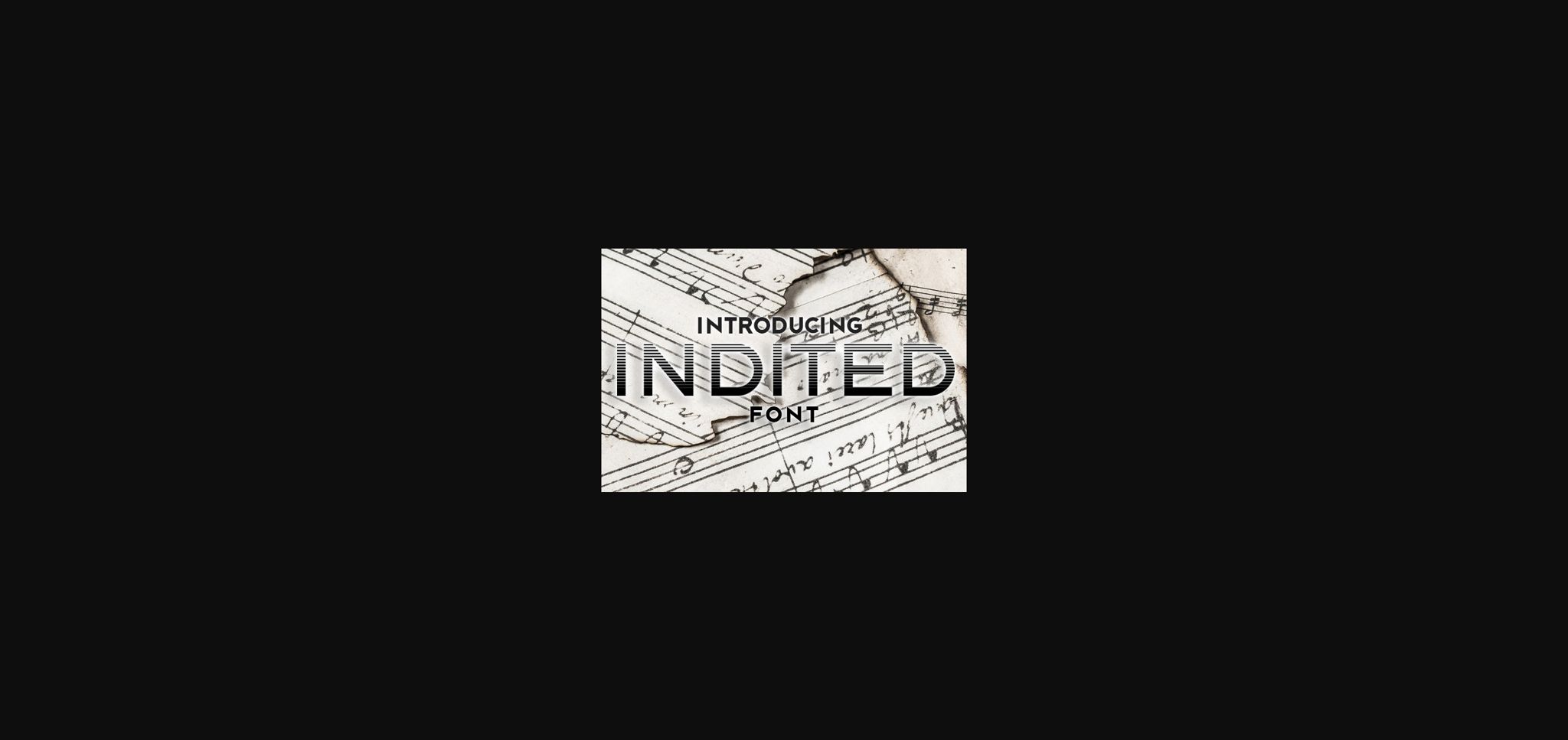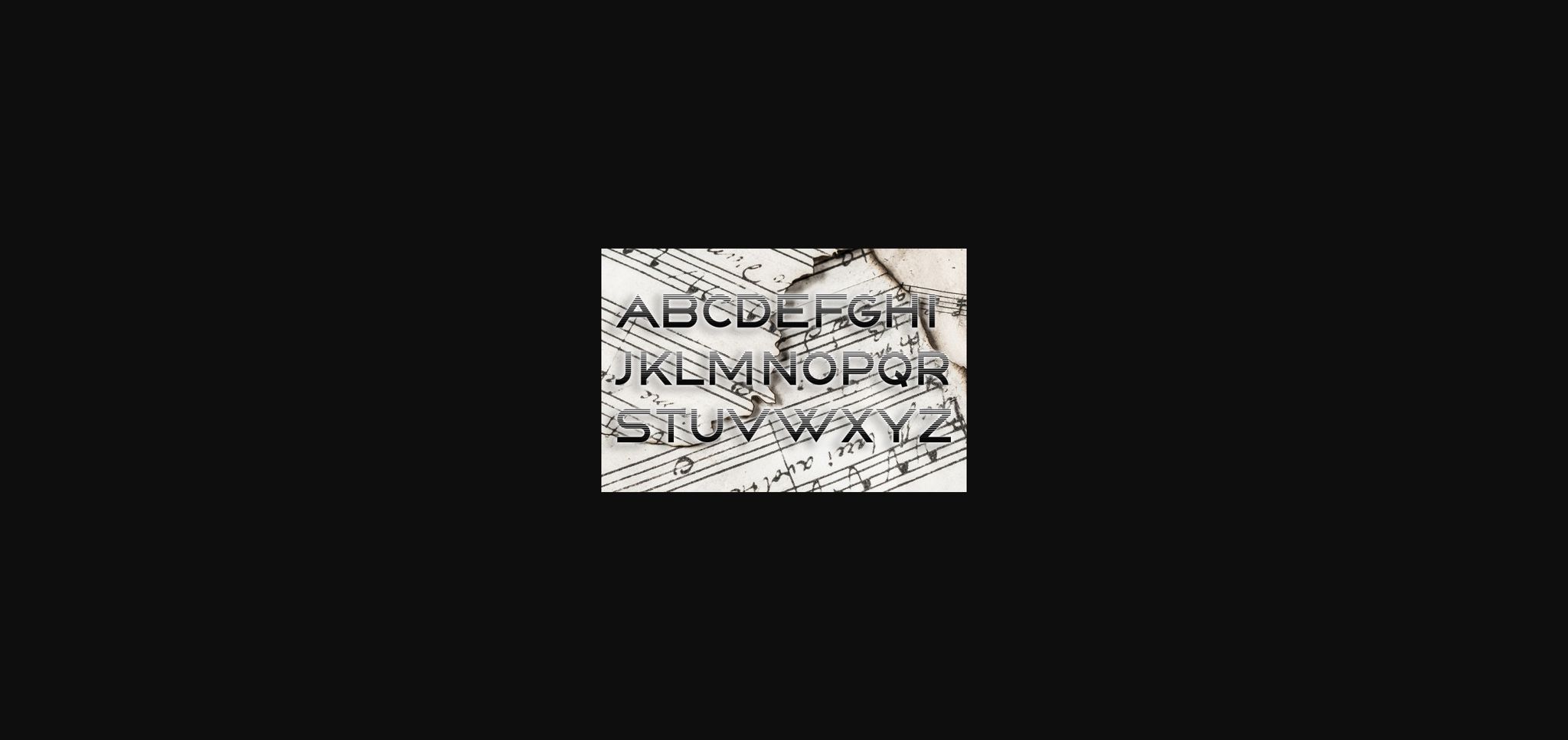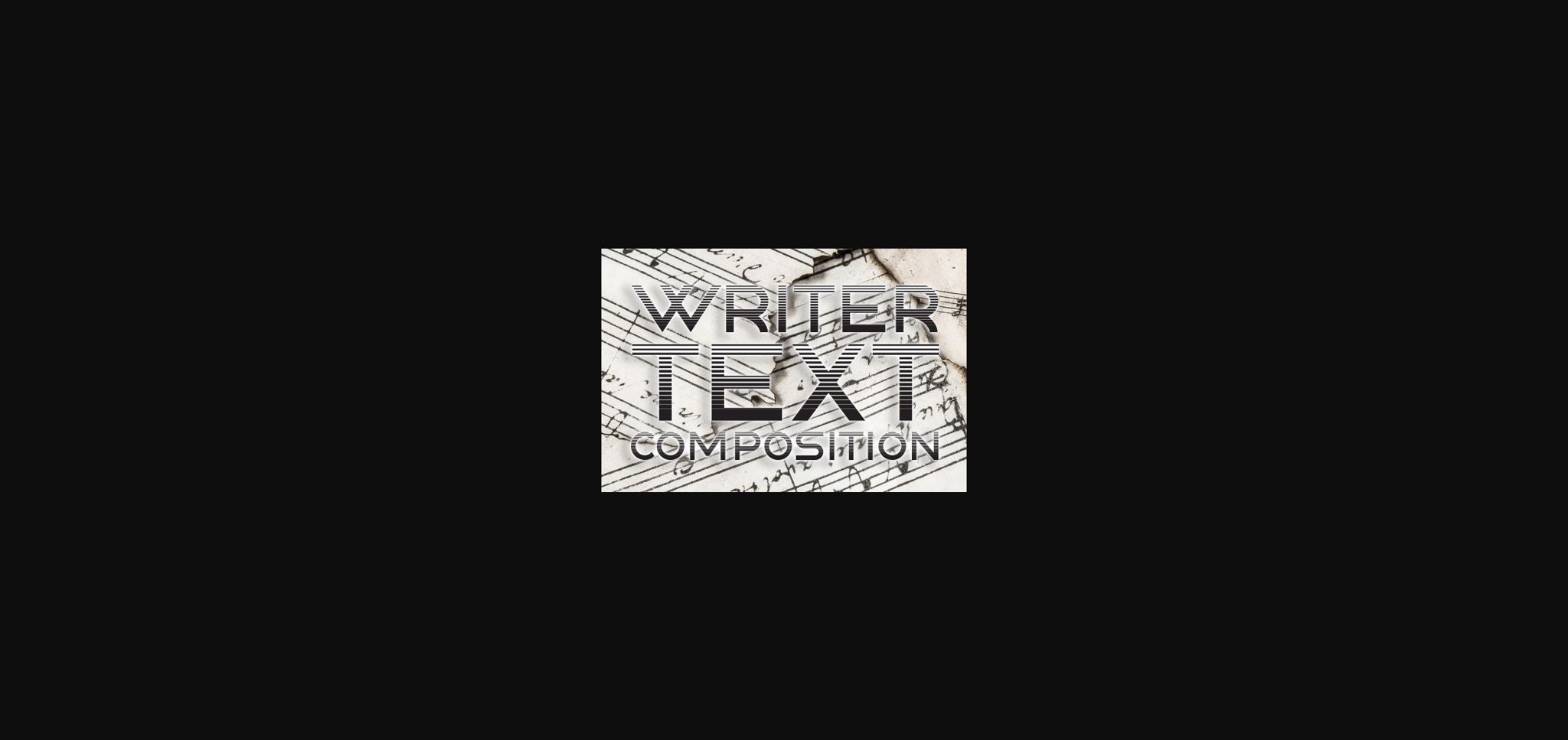
Indited Font
About Indited Font
Indited is an awesome gradient font that will look perfect on your best projects.
Use this font on banners, headlines, and posters.